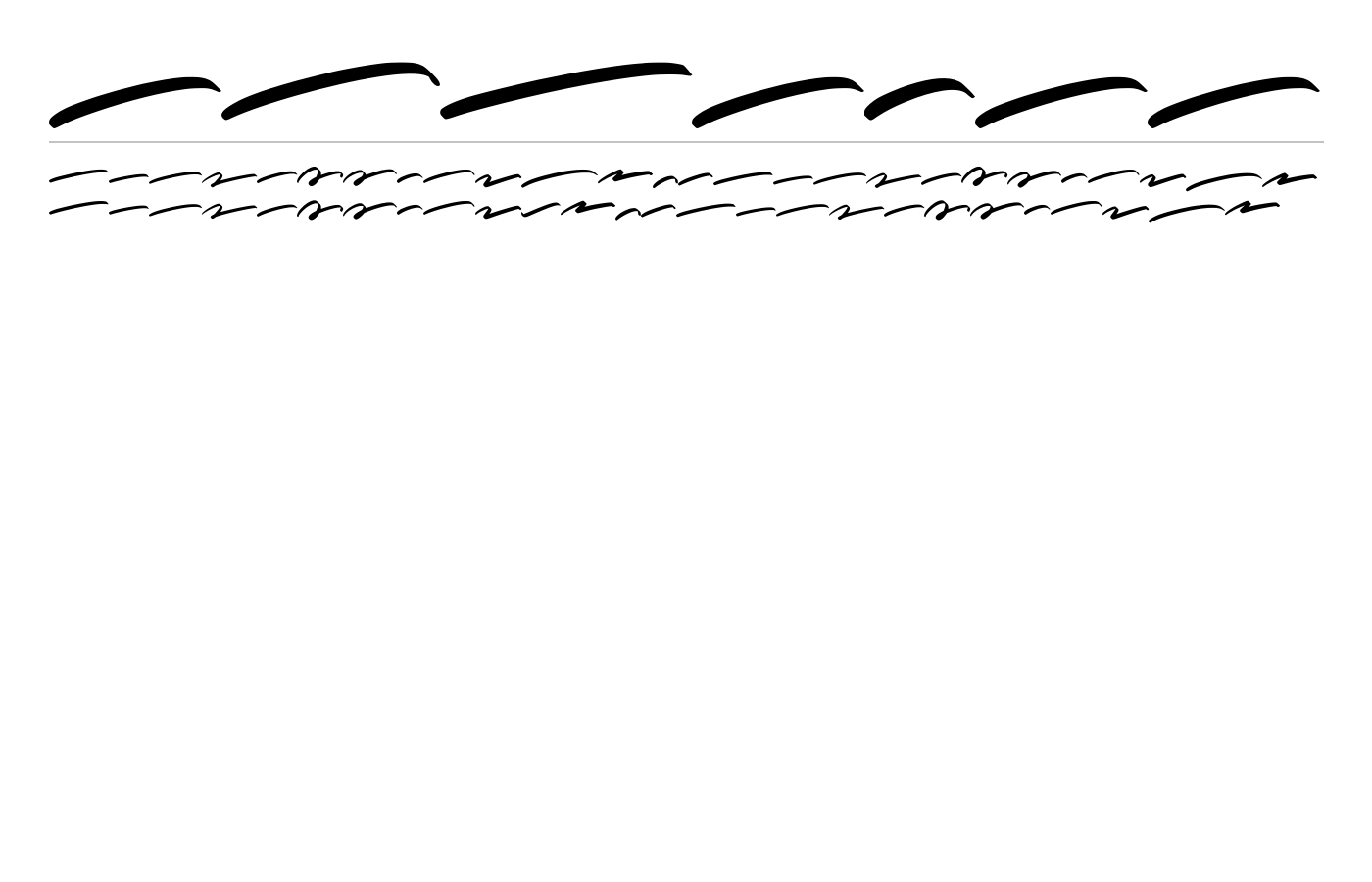
18 Font is a dynamic and expressive script typeface featuring fluid, calligraphic strokes that mimic natural handwriting with varying thick and thin lines. Its lively, informal style suits creative and casual branding, invitations, or artistic projects needing a personal, hand-crafted feel. Ideal for logos and headlines, it adds personality and movement while retaining legibility.
18 Font
About 18 Font
| Font family | 18 Font |
| Designer | fatmawati |